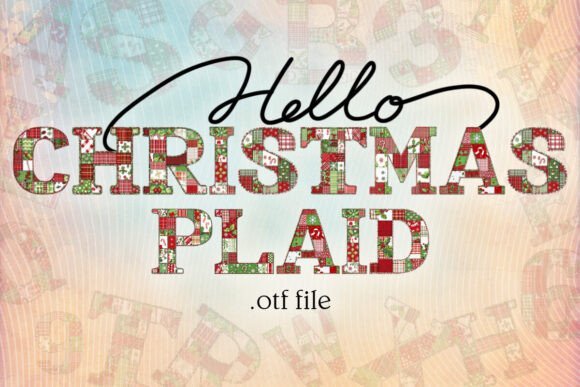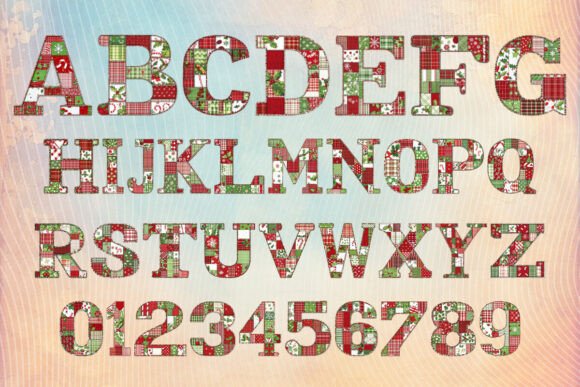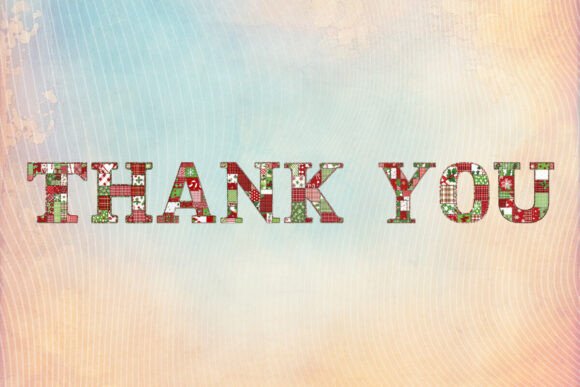
Deck the Halls with Holiday Cheer: Introducing the Christmas Plaid Font
As the holiday season approaches, creative minds start buzzing with ideas for festive designs, gift tags, and personalized cards. For many, this is the most magical time of the year, a time to express their love and gratitude through handmade creations. But sometimes, all it takes is the perfect font to elevate your design from ordinary to extraordinary.
Enter the Christmas Plaid Font, a delightful combination of classic tartan tradition and holiday spirit. With its 26 captivating letters and 10 numbers, this color font is the perfect addition to your design toolkit. Whether you’re a seasoned designer or a crafty enthusiast, the Christmas Plaid Font adds a unique blend of rustic charm and festive warmth to every project. From heartfelt holiday greetings to cheerful Christmas crafts, this font is sure to make your creations stand out.
Christmas Plaid Font Key Features
- Unique Characteristics: The Christmas Plaid Font features a distinctive plaid pattern with a festive holiday theme, making it perfect for designing Christmas cards, gift tags, and other holiday-related materials.
- Color Options: The font includes a range of color options, including red, green, blue, and yellow, allowing users to customize the design to suit their preferences.
Christmas Plaid Font Review
As a designer, I was excited to try out the Christmas Plaid Font. Here’s my honest review:
- Festive and Fun: The font is perfect for adding a touch of holiday cheer to your designs. Its playful plaid pattern is sure to put a smile on your audience’s face.
- Customizable: The font comes in a range of colors, allowing you to match it to your brand’s color scheme or create a unique holiday look.
- Easy to Use: I found the font to be relatively easy to use, with clear instructions and a user-friendly interface.
- Limited Font Variations: While the font is fun and festive, it’s not the most versatile. It may not be suitable for more formal or professional designs.
- Distractions: The plaid pattern can be distracting, especially when used in large blocks of text. Be sure to use it sparingly to avoid overwhelming your audience.
- Not Ideal for Body Text: Due to its playful nature, I wouldn’t recommend using the Christmas Plaid Font for body text. It’s better suited for headlines, titles, or other decorative elements.
Overall, I think the Christmas Plaid Font is a great addition to any designer’s toolkit. While it may have some limitations, its festive and customizable nature make it perfect for holiday designs or promotional materials.
Christmas Plaid Font: A Practical Application Guide
Christmas Plaid Font is perfect for creating festive holiday designs, such as:
Christmas cards and invitations
Holiday menus and party invitations
Decorative headers and titles
Customize the font by adjusting the size, color, and style to match your holiday theme.